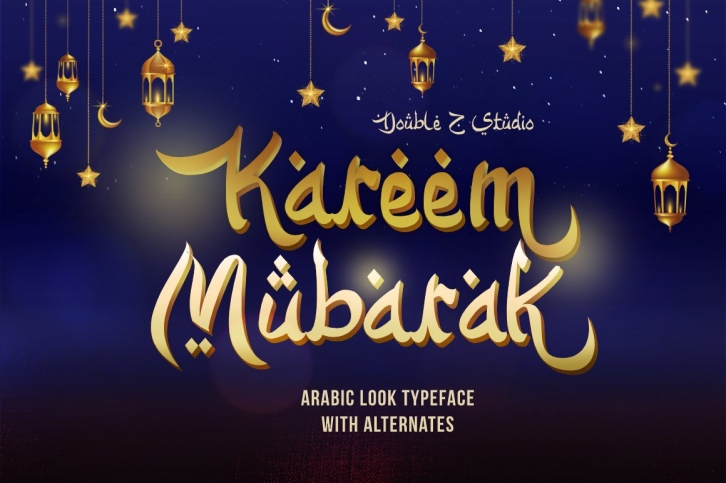
Kareem Mubarak is an arabic fauxlang or arabic look typeface. Carefully crafted. Smoothly flowing, perfect for logotype on Islamic or arabic event or brand.
Opentype features gives you more alternatives in designing.
• Basic Latin A-Z and a-z
• Symbols
• Stylistic Set
• Ligature